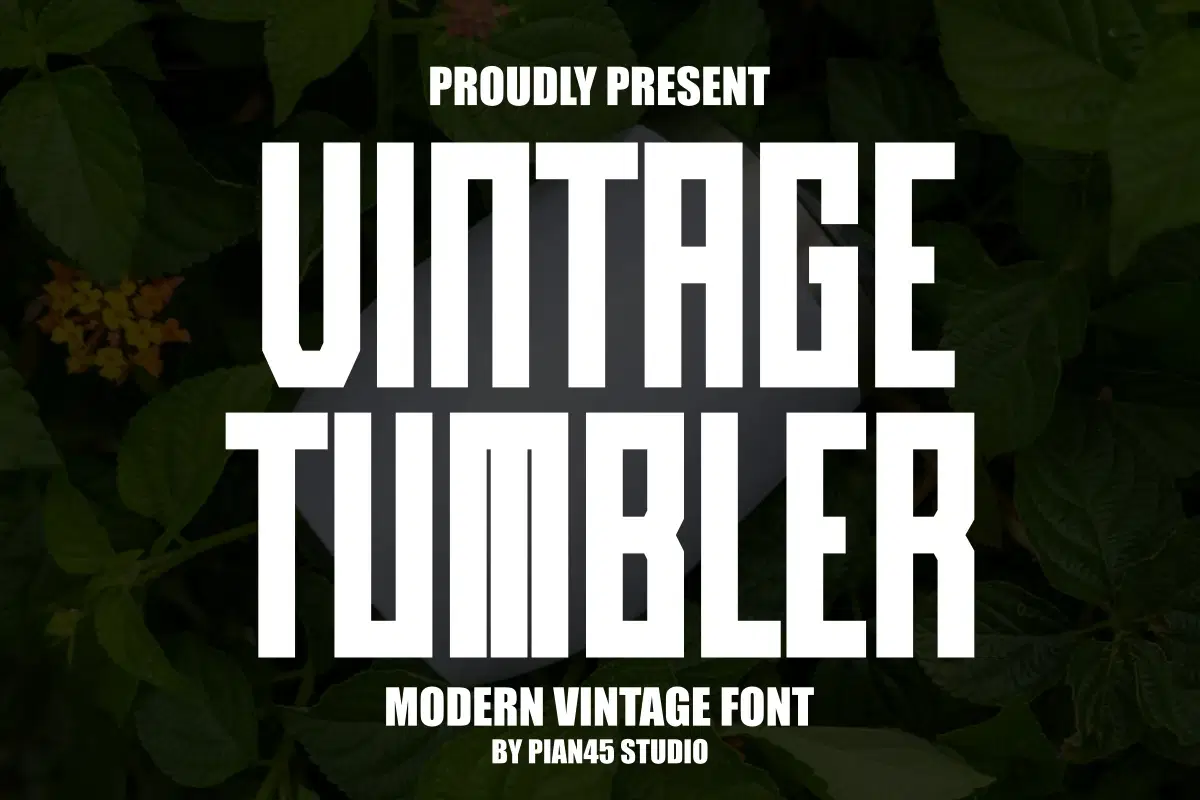
Vintage Tumbler - Modern Vintage Font
Need the perfect bold look for your merchandise? Meet Vintage Tumbler! This is a powerful, Modern Vintage Font that delivers maximum impact with its tall, condensed letterforms. Blending a retro aesthetic with clean, modern display typography, it's the ultimate choice for custom tumblers, T-shirt designs, bold branding, and any project demanding a strong statement. Grab this versatile, all-caps font today and elevate your sublimation or vinyl creations!